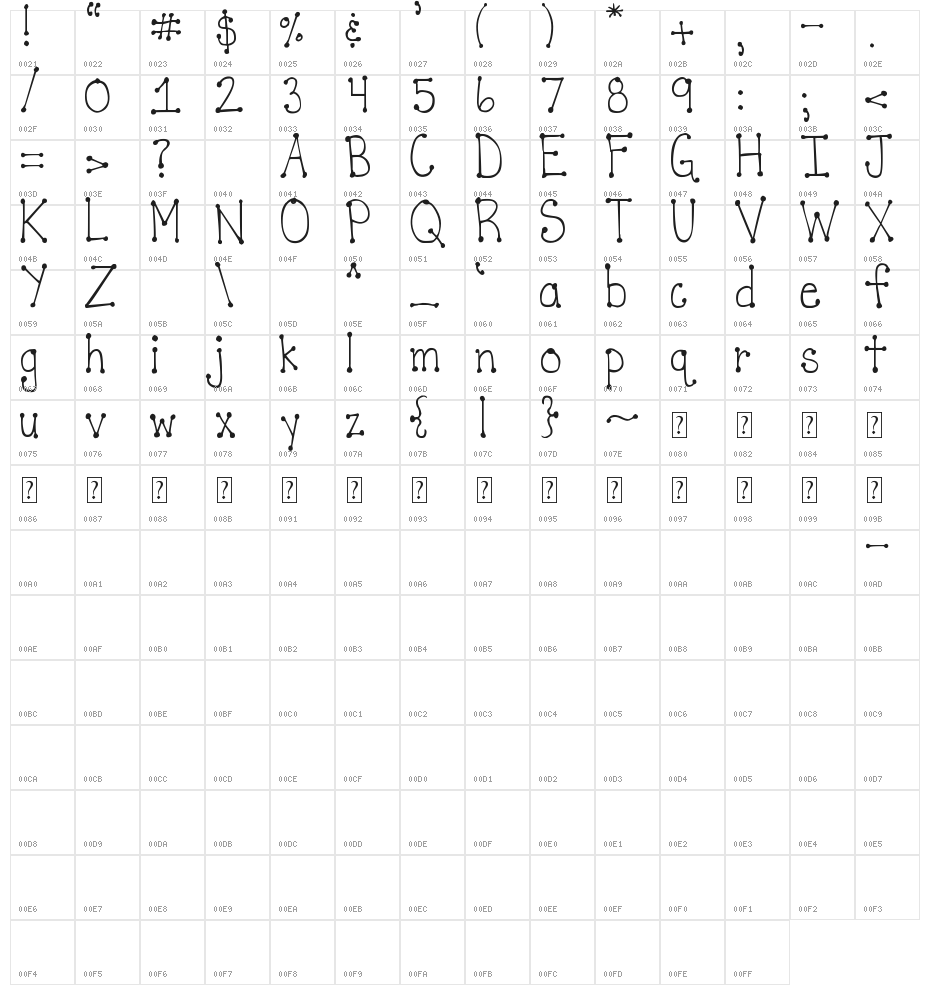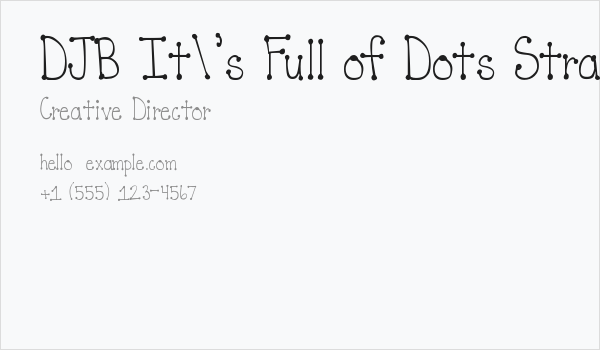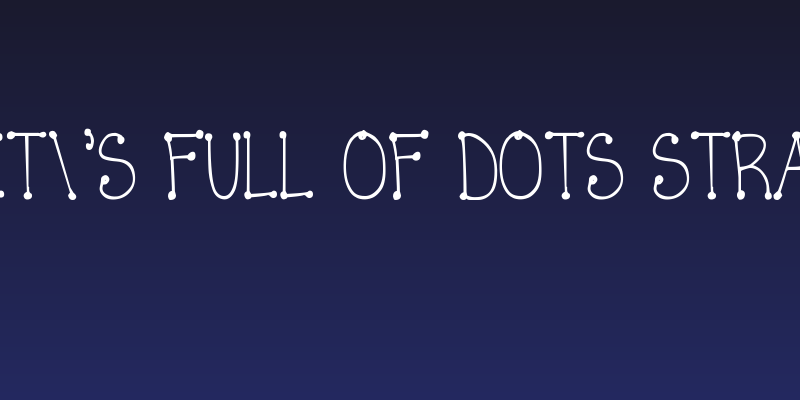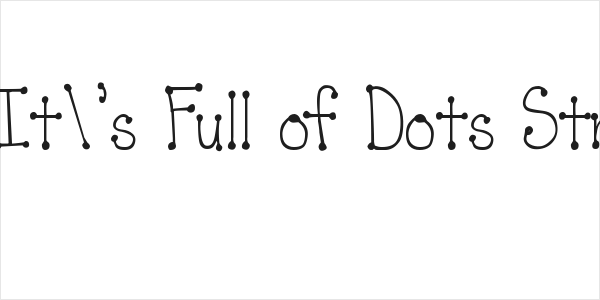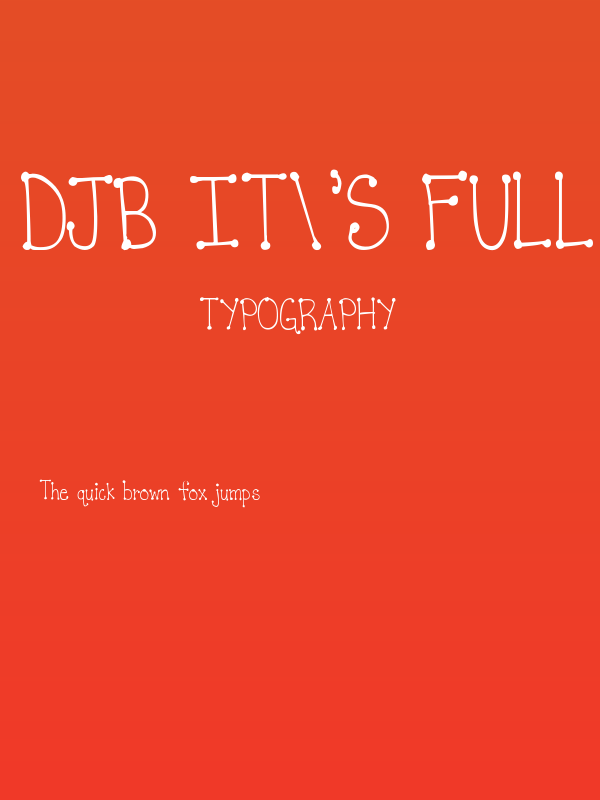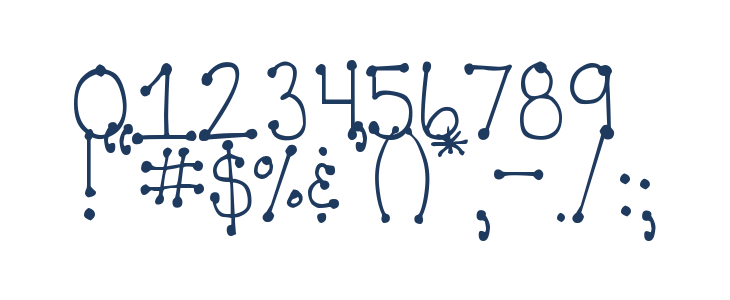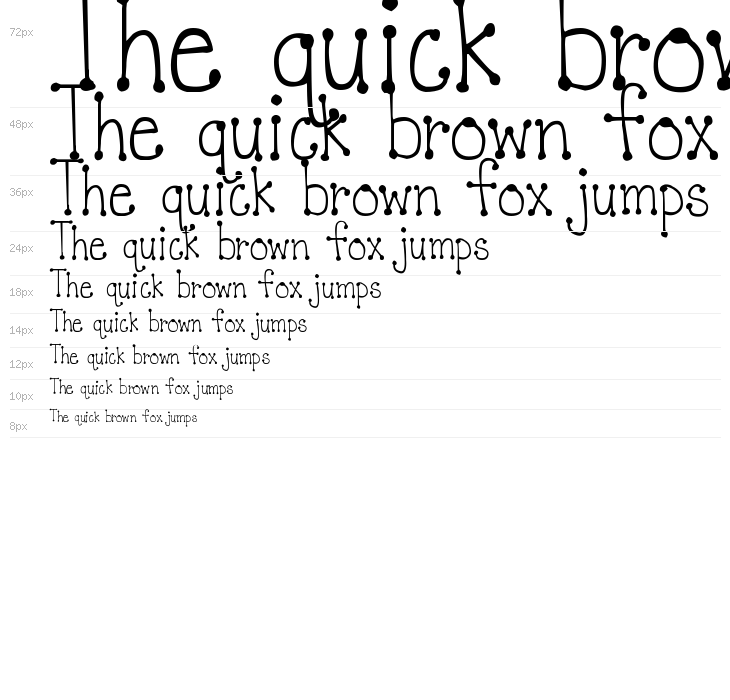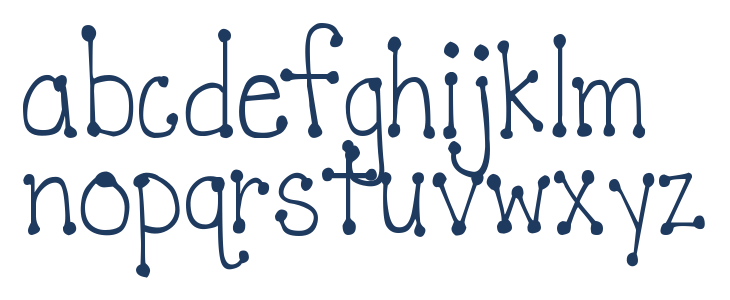
DJB It's Full of Dots Straight Font
DJB It's Full of Dots Straight Description
This playful and whimsical font features a unique design where each character is composed of straight lines connected by dots at key points. The uppercase and lowercase letters maintain a consistent style, creating a cohesive look across the alphabet. Numbers and special characters follow the same dotted theme, adding to the font's charm. The overall appearance is casual and fun, making it ideal for projects that require a lighthearted touch. The font's distinct style ensures readability while also providing a decorative element that can enhance creative designs.
| Overall Style | Whimsical |
| Use Case | Headlines, Logos, Decorative text |
| Proposed Projects | Ideal for children's books, playful invitations, greeting cards, and creative posters. |